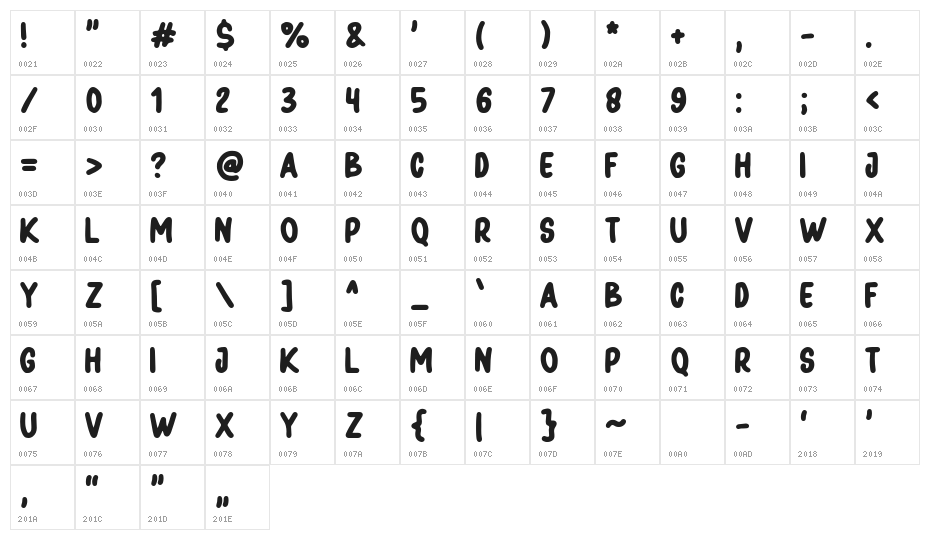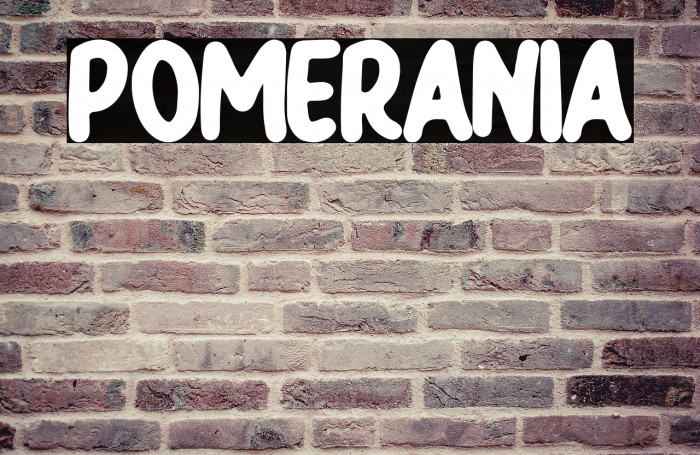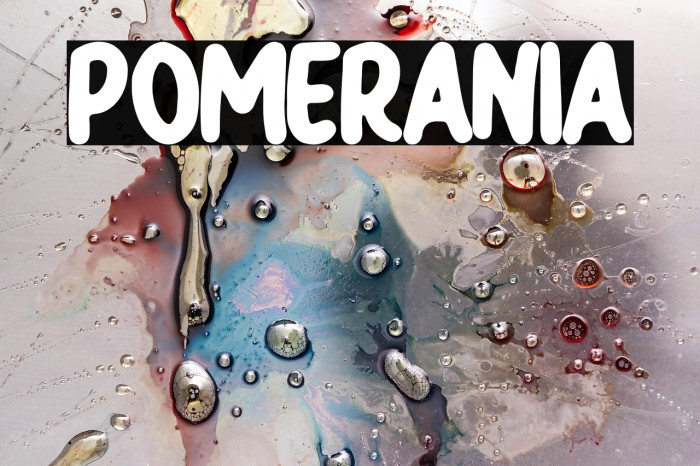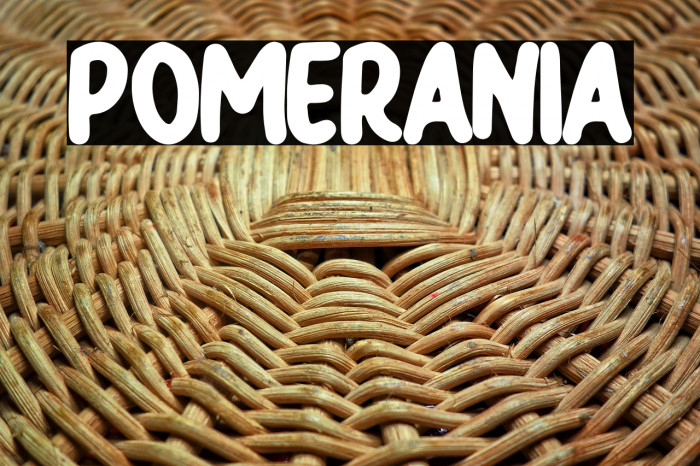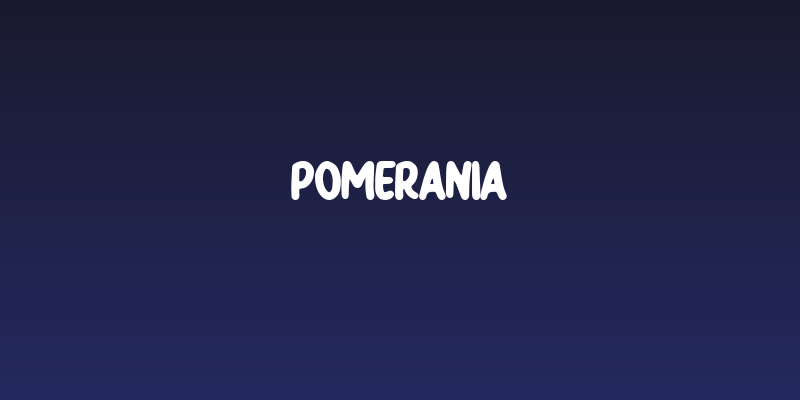
Pomerania Font
Pomerania Description
This font features a bold and playful design with rounded edges and a hand-drawn appearance. The characters are thick and slightly irregular, giving them a casual and friendly look. The uppercase and lowercase letters maintain a consistent style, with a slight slant that adds a dynamic feel. The numbers and special characters follow the same aesthetic, ensuring uniformity across all glyphs. This font's boldness and unique style make it stand out, while its rounded forms convey warmth and approachability.
| Proposed Projects | Ideal for children's books, playful branding, posters, and social media graphics. |